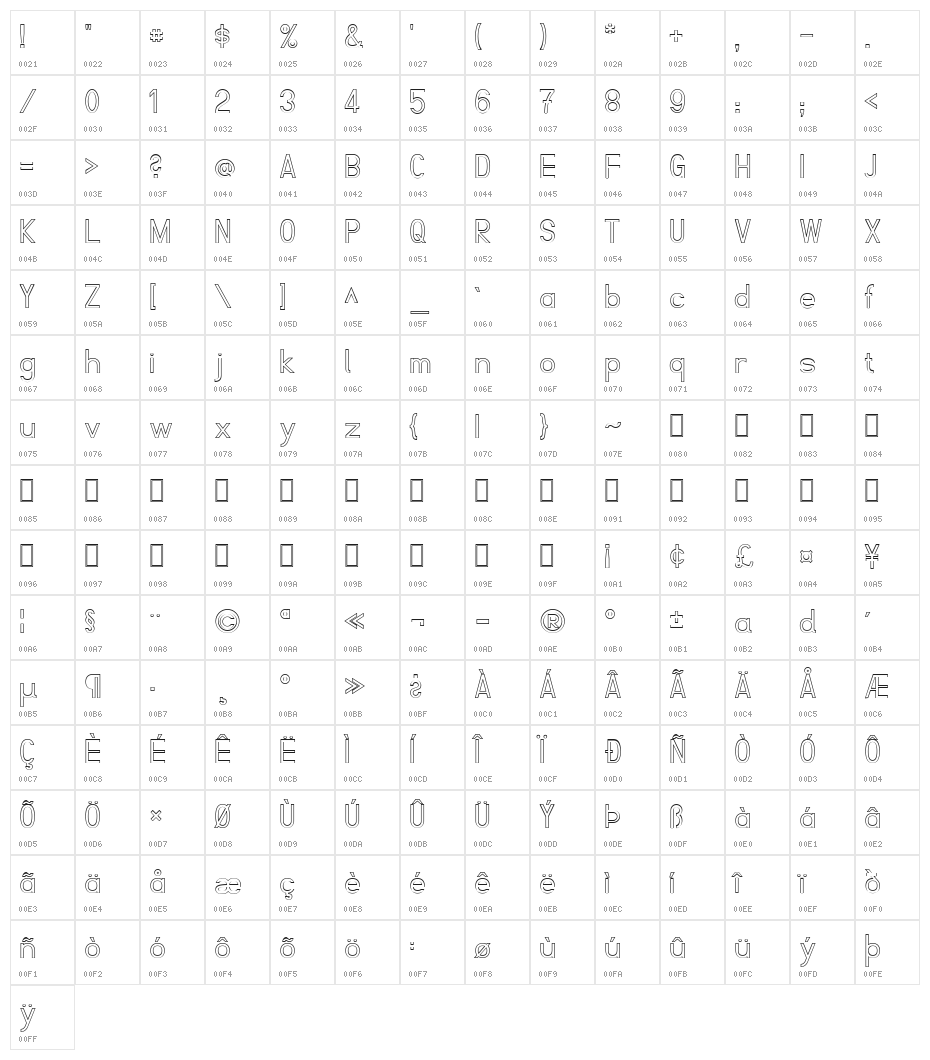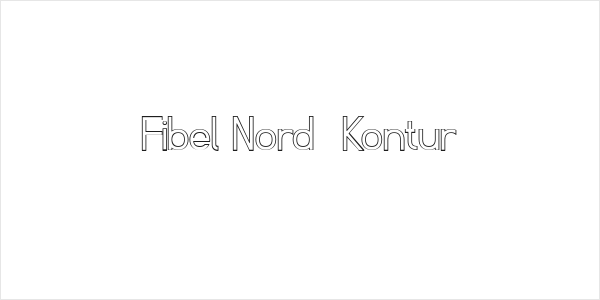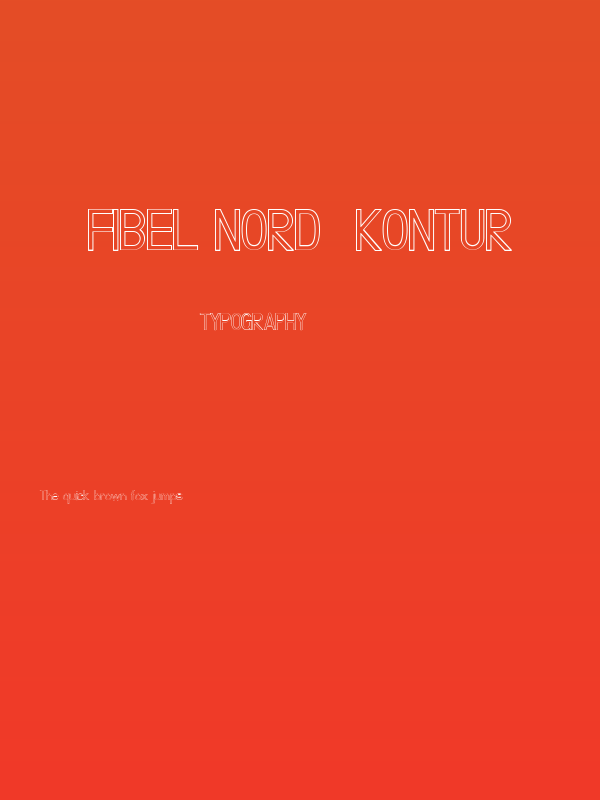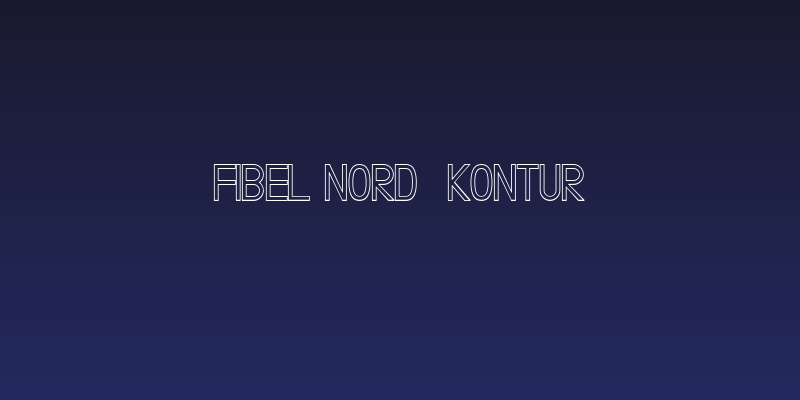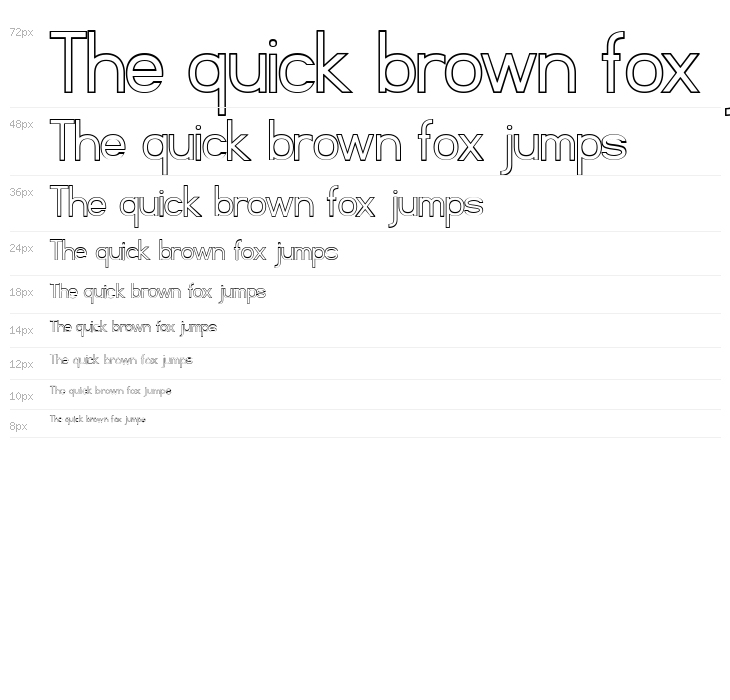
Fibel Nord Kontur Font
Fibel Nord Kontur Description
This font features a distinctive outline style, characterized by its hollow, linear design. The uppercase and lowercase letters maintain a consistent geometric structure, with clean lines and a modern aesthetic. The numerals and special characters follow the same outline pattern, ensuring uniformity across all glyphs. The font's open and airy appearance makes it ideal for creating eye-catching designs where the text needs to stand out without overwhelming the viewer. Its simplicity and clarity make it versatile for various design applications.